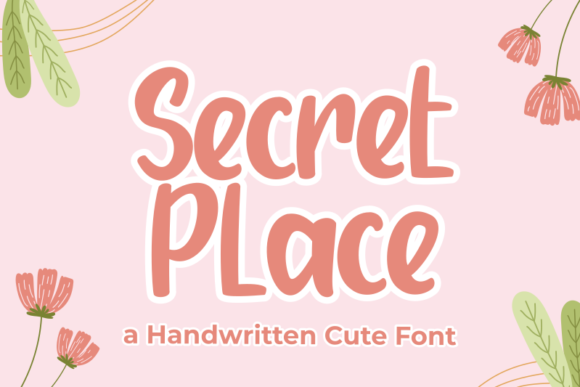
Welcome to the world of Secret Place Font, a charismatic creation by Rvandtype, where fun, informality, and playfulness dance together on the canvas of your designs. This script font family, inspired by the beauty of retro design, is a treasure trove of creativity, offering a touch of whimsy and lightheartedness to your projects.
Imagine your designs adorned with the charm of Secret Place Font, where each letter, crafted with meticulous care, carries the warmth and vibrancy of handwritten notes. Its sweet and lively style brings a sense of nostalgia to your creations, evoking memories of cherished moments and timeless simplicity.
With Secret Place Font, you can effortlessly add a personal touch to your designs, making them stand out from the crowd. Its versatility knows no bounds, whether you're designing stunning logos, eye-catching posters, heartfelt invitations, or quirky social media posts. Let the expressive strokes of this font infuse your work with a unique character that captivates and engages your audience.
Unlock the potential of Secret Place Font and unleash your creativity. Its charming personality and retro flair will transform your designs into works of art, leaving an unforgettable impression on all who behold them. Dive into the world of this remarkable font and discover endless possibilities to express yourself with style, authenticity, and joy.
- Exquisite Script Font Family
- Playful and Informal Style
- Retro Design Inspiration
- Perfect for Logos, Posters, Invitations, and Social Media
- Adds a Personal Touch to Your Designs
- Captivating and Engaging
- Unleashes Creativity and Self-Expression